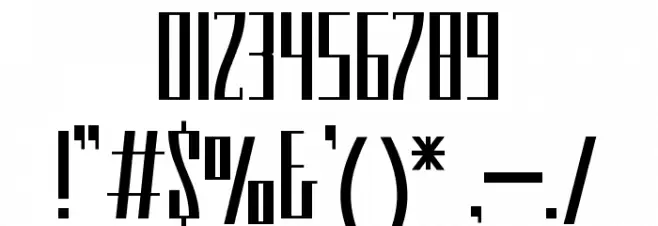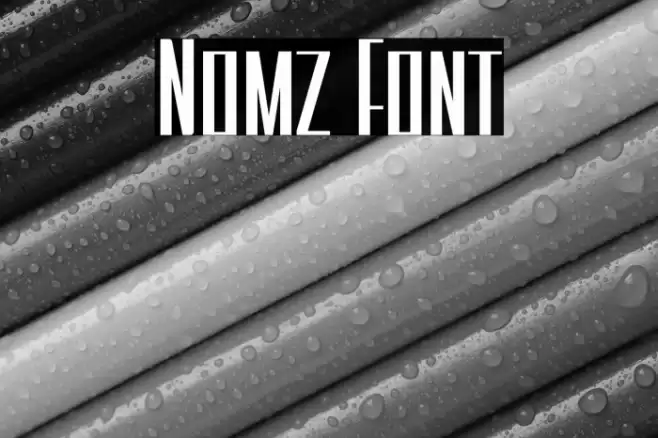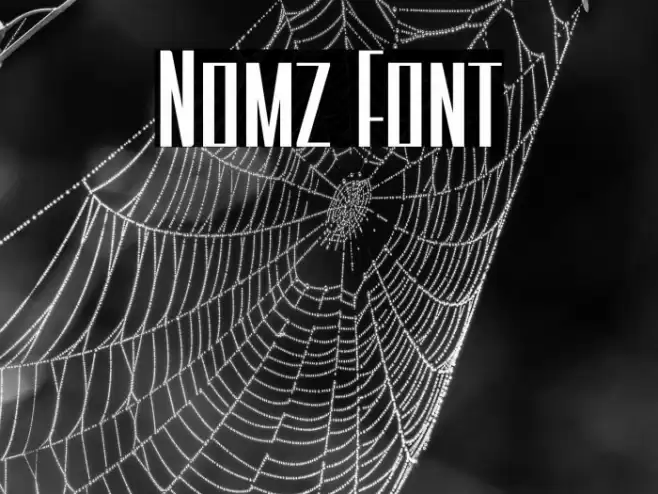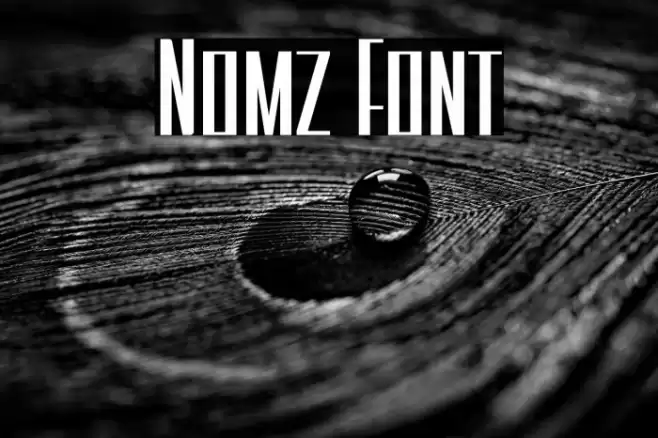
Nomz Font
Nomz Description
This font features a bold and striking design with tall, narrow characters that convey a sense of modernity and strength. The uppercase letters are particularly elongated, giving the font a distinctive, impactful appearance. The characters are tightly spaced, enhancing the compact and cohesive look. The font's geometric structure is evident in the sharp angles and clean lines, making it suitable for attention-grabbing headlines and titles. The numerals and special characters maintain the same boldness and angularity, ensuring consistency across all text elements.
| Proposed Projects | Ideal for use in posters, logos, branding, and editorial headlines where a strong visual impact is desired. |